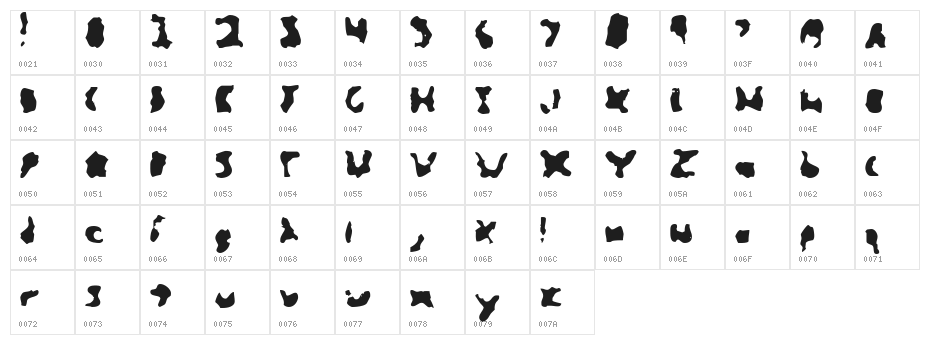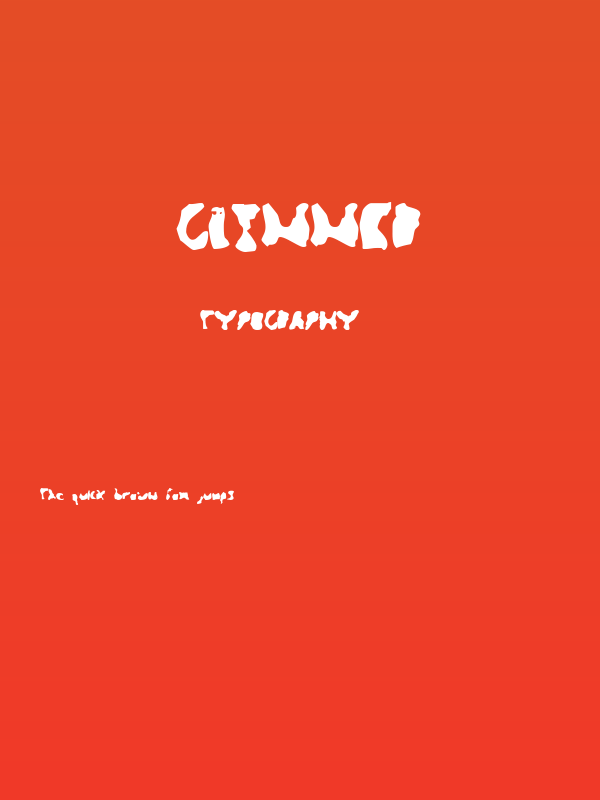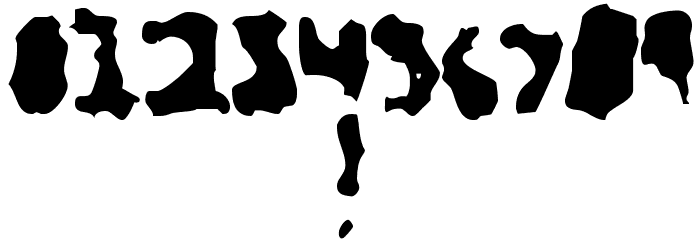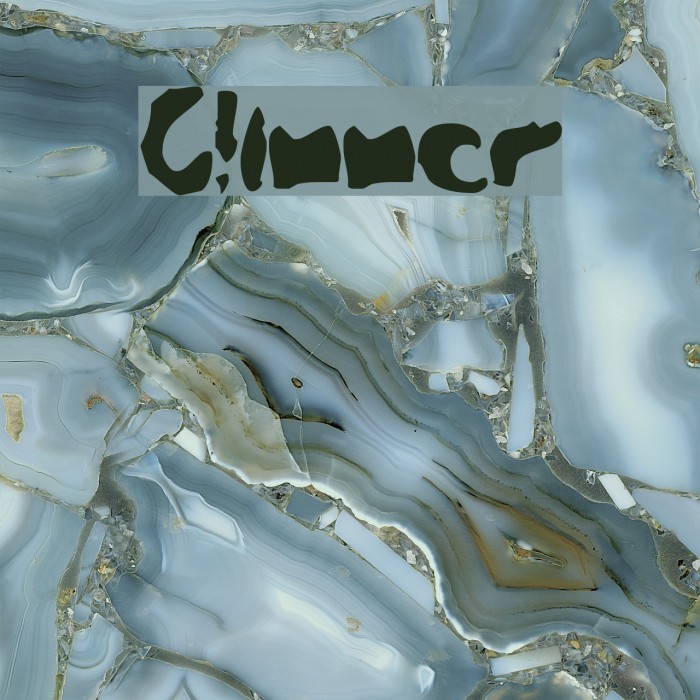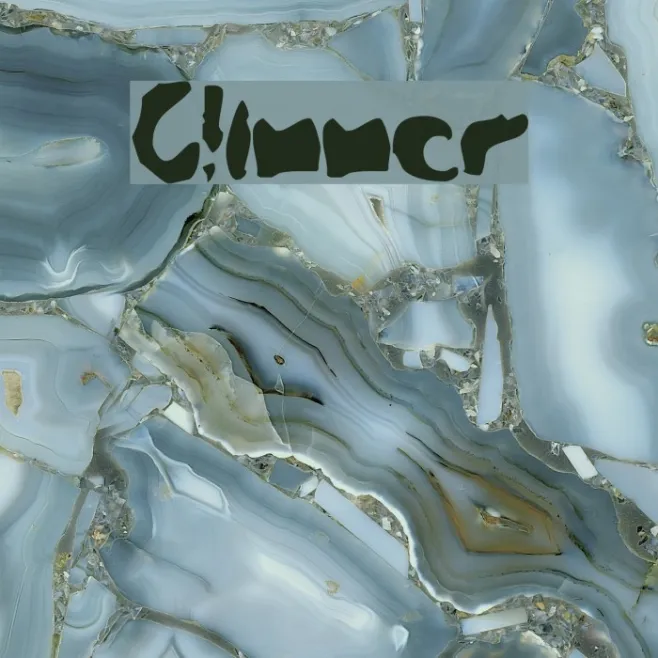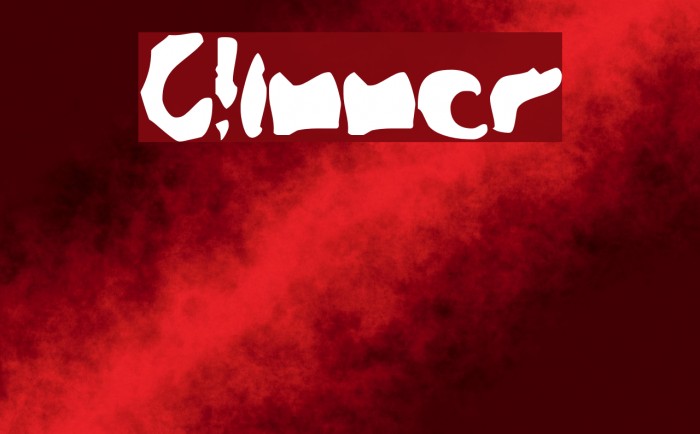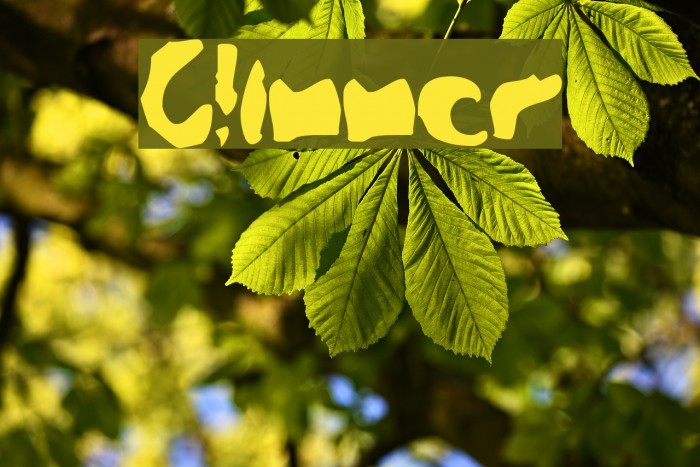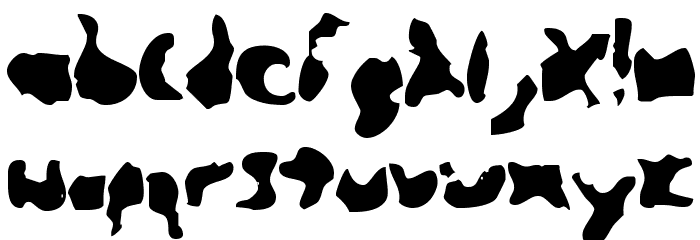
Glimmer Font
Glimmer Description
This font features a highly decorative and abstract style, with each character appearing as if it has been formed from splashes of ink or paint. The letters have an organic, fluid look, with irregular edges and varying thicknesses that give them a dynamic and artistic feel. The uppercase and lowercase letters maintain a consistent theme, while the numbers and special characters continue this unique aesthetic. This font is not designed for readability but rather for artistic expression, making it ideal for creative projects that require a bold statement.
| Use Case | Logos, Posters, Artistic projects |
| Proposed Projects | Ideal for art projects, album covers, posters, and any design work that requires a bold, artistic statement. |